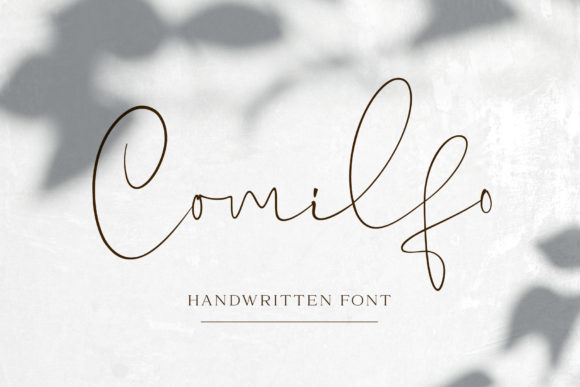
**Introducing Comilfo: The Quintessential Handwritten Font for Unforgettable Creations**
Step into the enchanting world of Comilfo, a captivating script that dances across the digital canvas with an air of elegant sophistication. Its delicate strokes, reminiscent of a skilled calligrapher's hand, evoke a sense of timeless artistry that will leave an enduring mark on your designs.
**Indulge in the Art of Expression**
Comilfo empowers you to transform your words into masterpieces, whether it's for a heartfelt wedding invitation or a captivating marketing campaign. Its flowing curves and graceful loops dance before your eyes, inviting you to explore the limitless possibilities of expression.
**A Whisper of Romance and Charm**
With its delicate strokes and whimsical charm, Comilfo whispers sweet nothings to your designs, adding a touch of romance and timeless beauty. It's the perfect escolha for love letters, heartfelt messages, and any other creation that calls for a whisper of affection.
**The Perfect Canvas for Your Imagination**
The Comilfo font family is a versatile work of art, lending itself effortlessly to a myriad of design projects. Its elegant lines add a touch of sophistication to logos and business cards, while its playful nature brings a smile to greeting cards and social media posts.
**A Timeless Treasure for Your Creative Toolkit**
Comilfo is a font that transcends time, its beauty enduring through the ages. Whether you're a seasoned designer or a budding artist, this font will become an indispensable part of your creative toolkit, inspiring you to craft designs that leave a lasting impression.
**Ignite Your Passion for Design**
Experience the magic of Comilfo today and let your creativity soar. Its timeless elegance and captivating charm will ignite your passion for design, empowering you to create works of art that will captivate and inspire for generations to come.